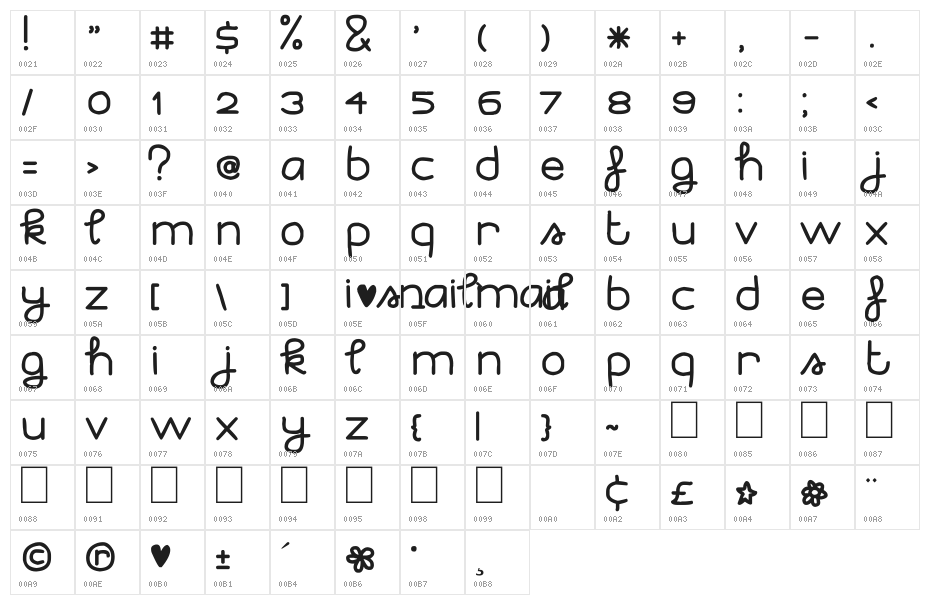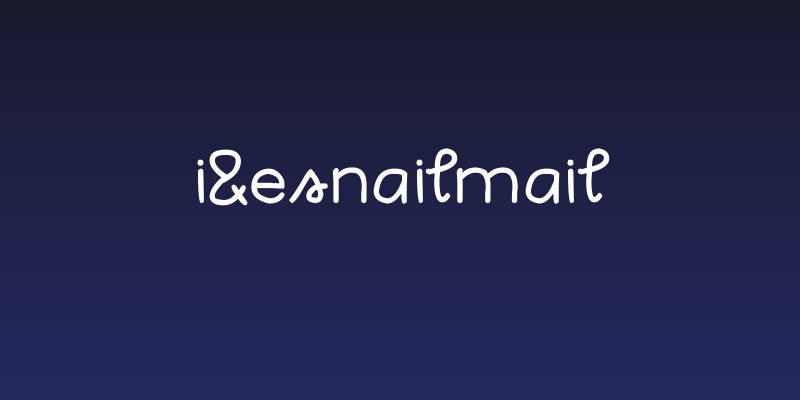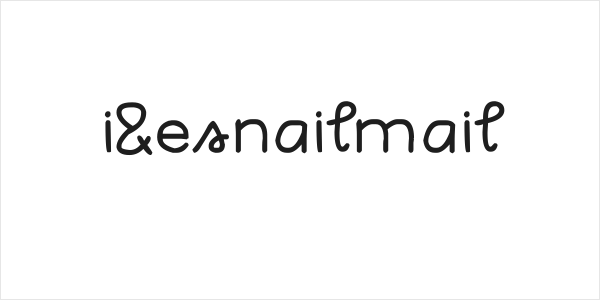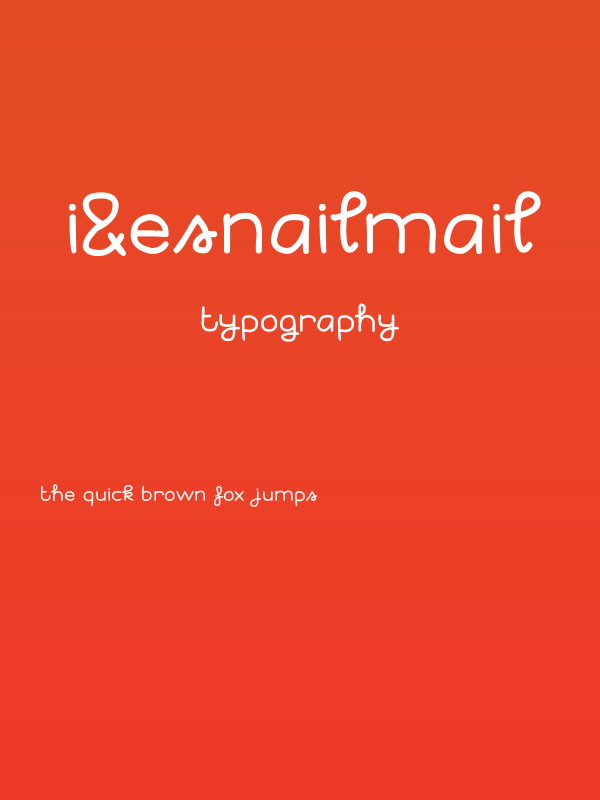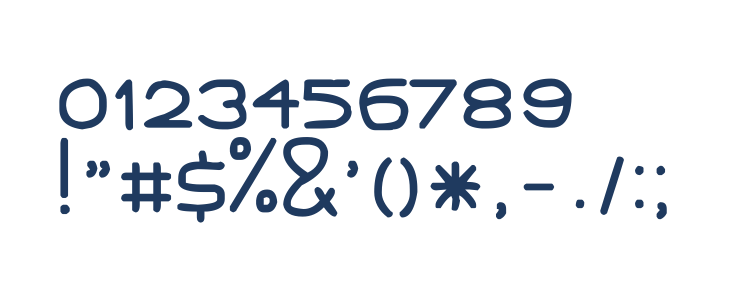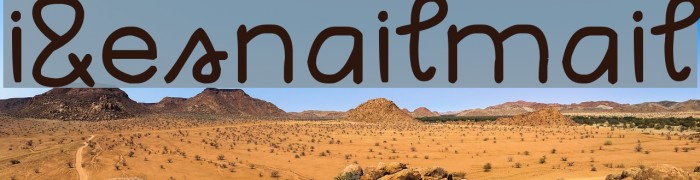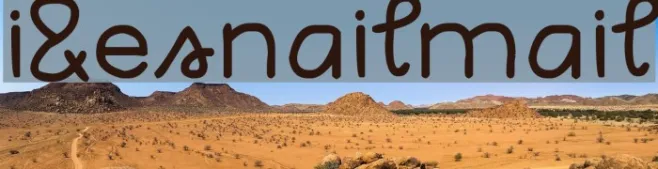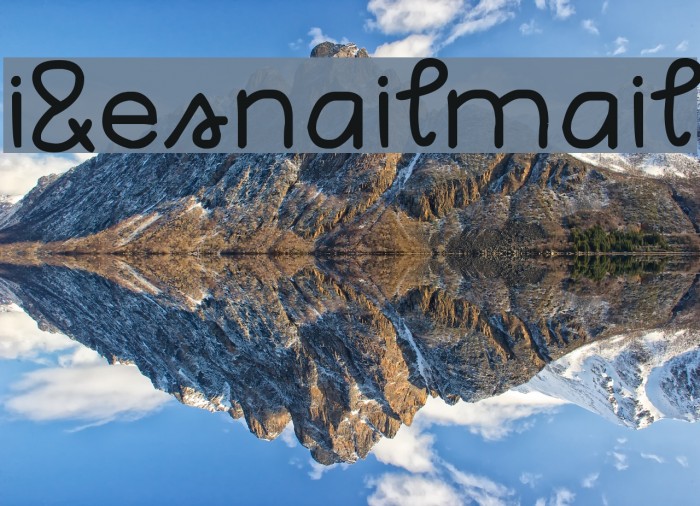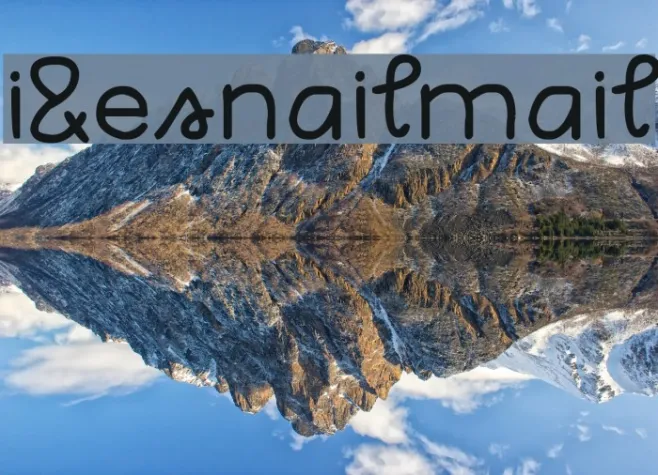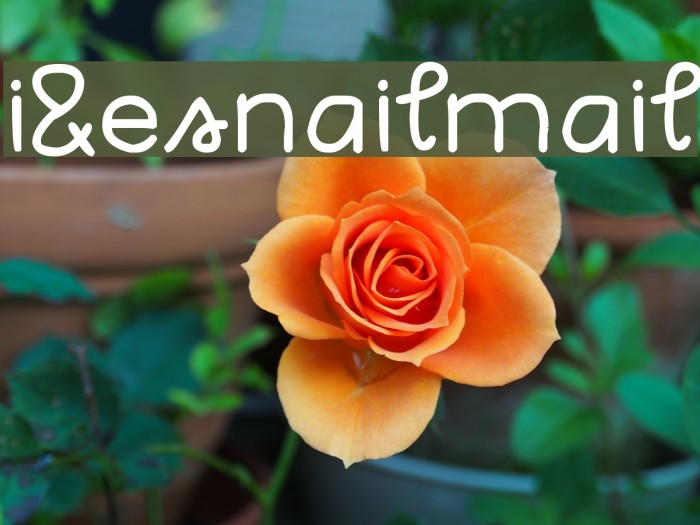
i&esnailmail Font
i&esnailmail Description
This font features a playful and whimsical handwritten style, characterized by its rounded and smooth letterforms. The strokes are consistent in width, giving it a uniform appearance. Each character has a unique, slightly quirky design that adds to its charm, making it ideal for projects that require a personal touch. The font includes a full set of lowercase letters, numbers, and a variety of special characters, all maintaining the same playful aesthetic. Its legibility is enhanced by the clear distinction between each character, despite the casual style.
| Use Case | Headlines, Logos, Casual text |
| Proposed Projects | Ideal for greeting cards, children's books, playful branding, and casual invitations. |